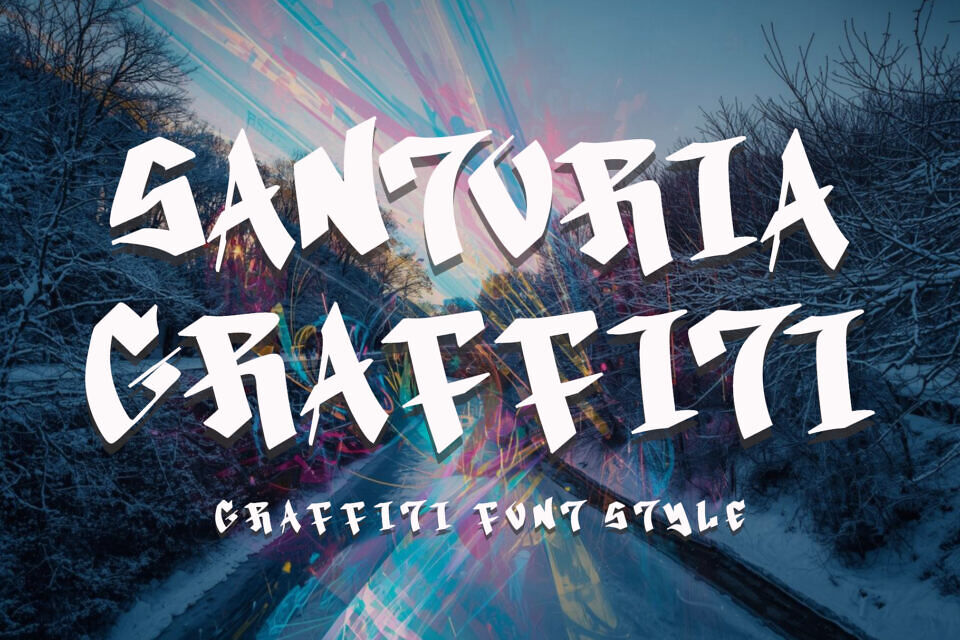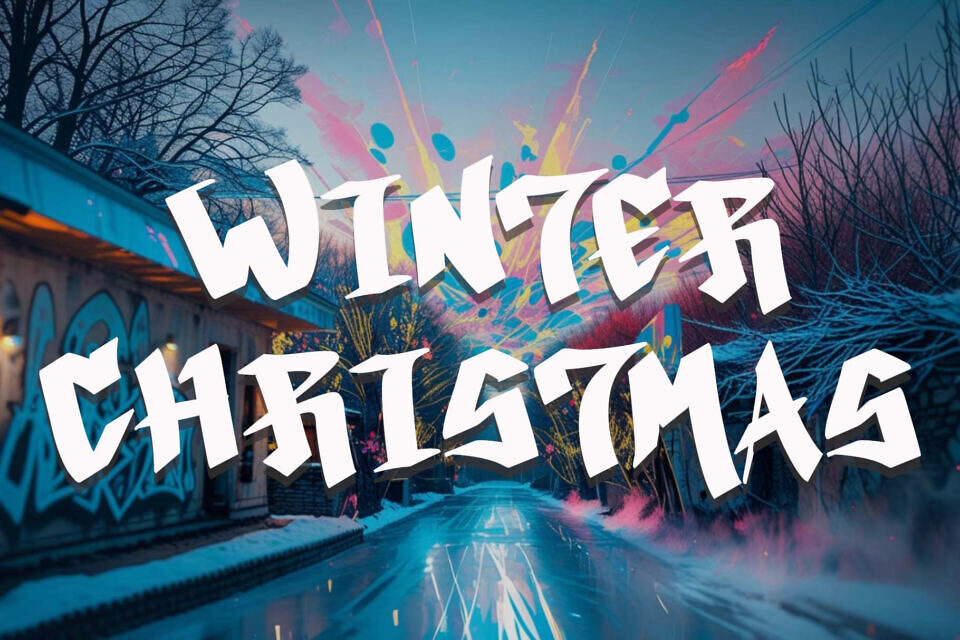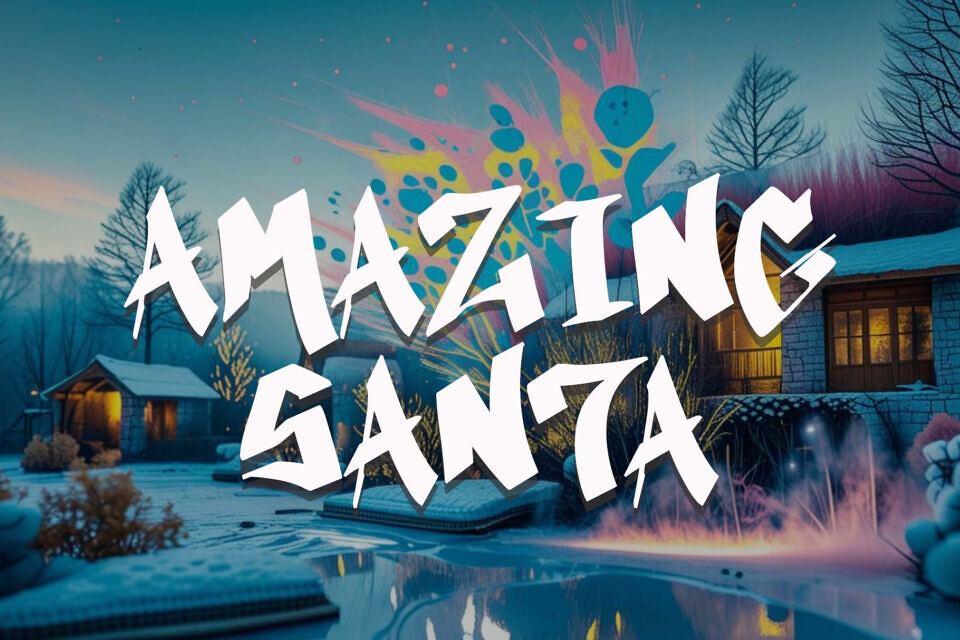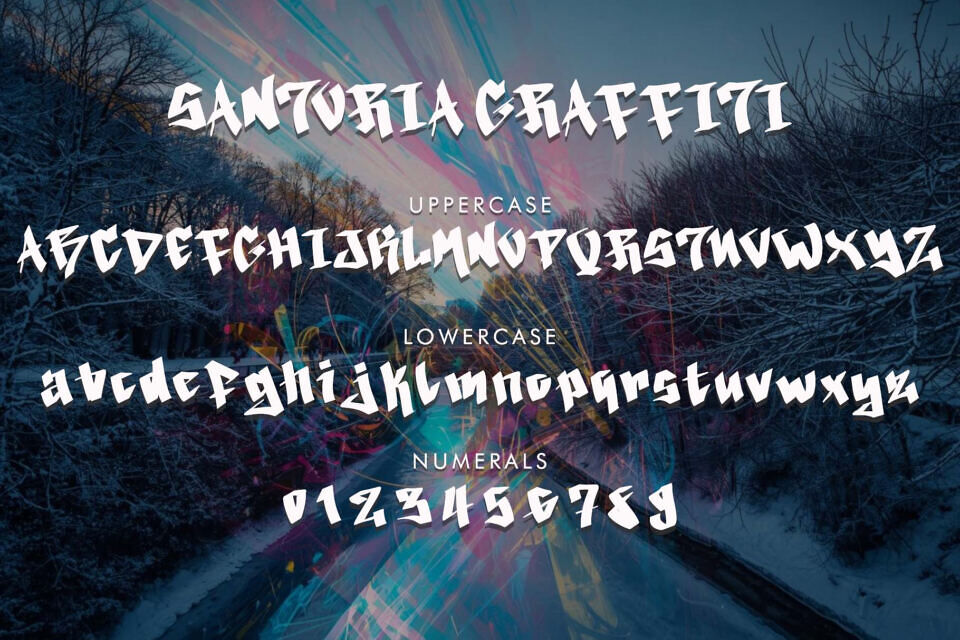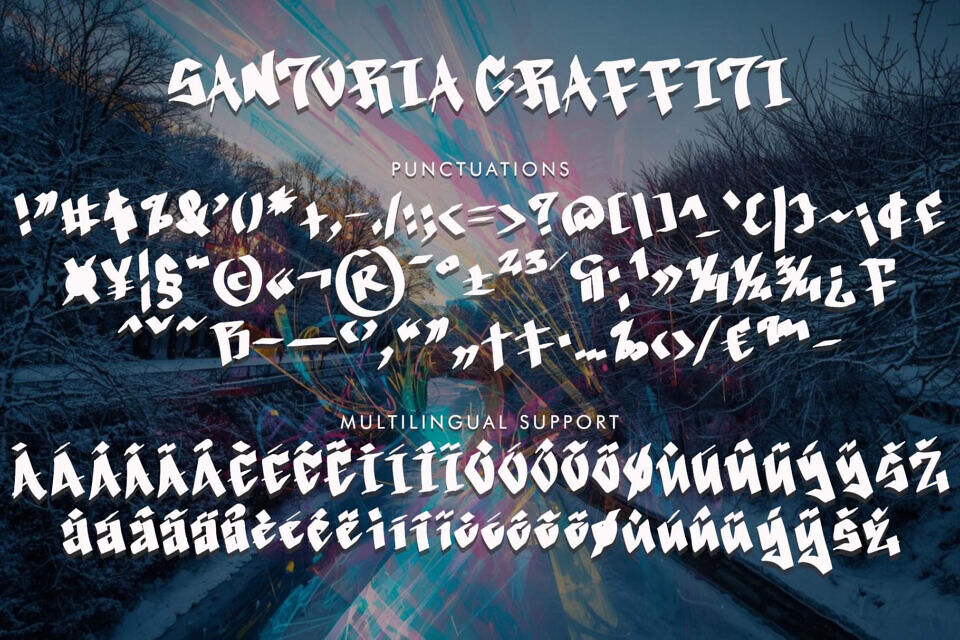
“Santoria Graffiti” is a unique and modern graffiti font. It features uppercase and lowercase letters, numerals, punctuation, and multilingual support. It’s perfect for Christmas, winter, spring, fall, and autumn, graffiti, urban fonts, street fonts, logos, stickers, posters, prints, banners, branding, summer logos, tattoos, movie titles, and more.